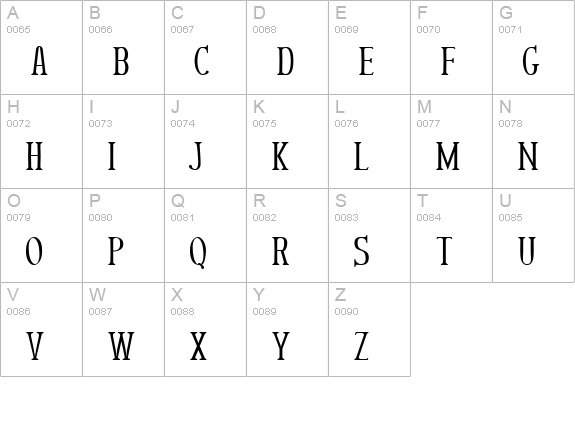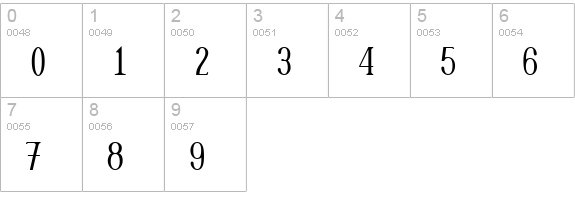
Rutaban Normal Font Details
Rutaban Normal is the standard, neutral variant in the Rutaban typeface family \xE2\x80\x94 well suited to general body text, paragraphs, and standard typographic work.
Rutaban Normal is a versatile and elegant font that seamlessly combines modernity with classic charm. Its clean lines and balanced proportions make it perfect for a wide range of design projects, from branding and marketing materials to website headers and signage. This font exudes a sense of sophistication and professionalism, making it suitable for both corporate and creative endeavors. Its timeless appeal ensures that it will remain relevant and stylish for years to come, making it a valuable addition to any designer's toolkit. Rutaban Normal offers a wide range of weights and styles, giving you the flexibility to create eye-catching typography that stands out. Whether you need a bold and commanding headline or a subtle and refined body text, this font has got you covered. But what sets Rutaban Normal apart from other fonts is that it is freely available to download at FontsMarket.com. Yes, you read that right – this exceptional font can be yours without spending a dime. FontsMarket.com is a trusted source for high-quality fonts, and their commitment to offering free fonts allows designers of all levels to access premium resources without breaking the bank. So why wait? Download Rutaban Normal today and elevate your design projects to new heights. With its timeless appeal and availability at FontsMarket.com, this font is a must-have for any discerning designer.